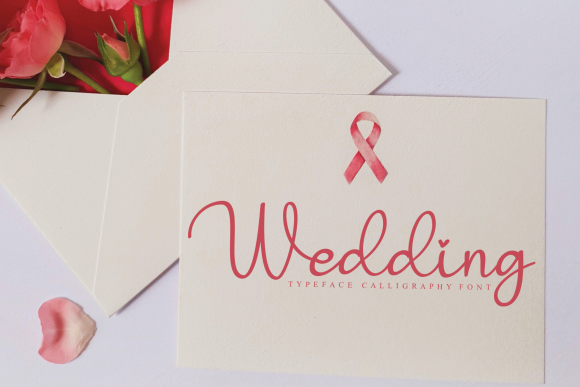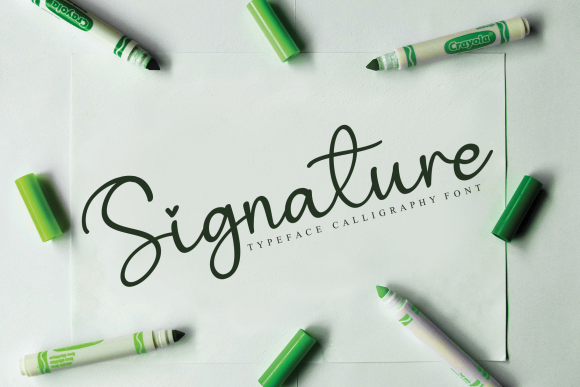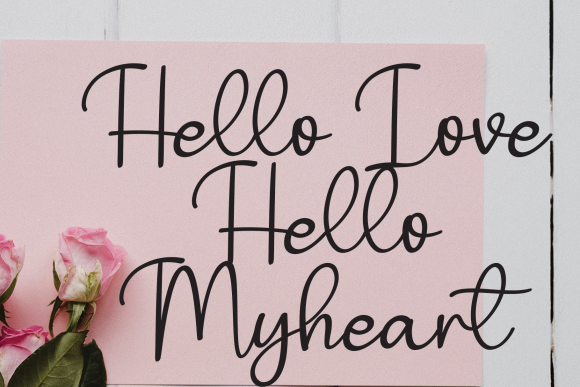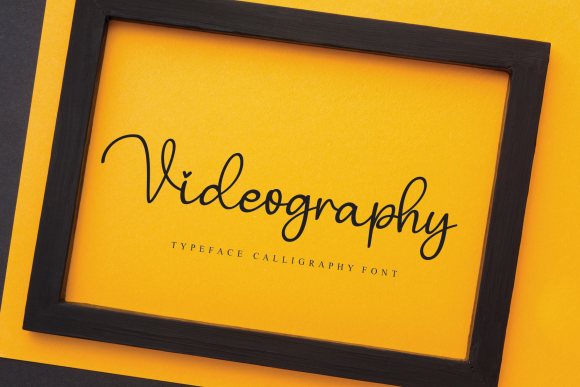
Introducing Angelic Font: Elevate Your Designs with Elegance and Sophistication
In the world of typography, a well-crafted font can make all the difference in elevating your design to new heights. For designers and crafters seeking a touch of elegance and sophistication, look no further than the Angelic Font. This beautiful, handwritten font is meticulously designed to bring a sense of refinement and poise to your projects, making it an ideal choice for fashion branding, editorial designs, and beyond.
The Beauty of Angelic Font
Angelic Font is a masterpiece of typographic design, characterized by its delicate and well-balanced curves. Each letter is carefully crafted to exude a sense of fluidity and harmony, creating a visually stunning effect that is sure to captivate your audience. The font’s elegant appearance makes it perfect for designs that demand a high level of sophistication, such as luxury fashion brands, high-end editorial content, and refined craft projects.
Key Features of Angelic Font
- Delicate Curves: Angelic Font boasts beautiful, flowing curves that add a touch of femininity and elegance to your designs.
- Well-Balanced: The font’s carefully balanced design ensures that each letter and word flows seamlessly into the next, creating a harmonious visual effect.
- Handwritten Charm: With its handwritten origins, Angelic Font brings a sense of warmth and personality to your designs, setting them apart from more traditional fonts.
- Versatile: Whether you’re working on fashion branding, editorial designs, or craft projects, Angelic Font is versatile enough to adapt to any creative vision.
Perfect for Fashion Branding and Editorial Designs
Fashion branding and editorial designs require a level of sophistication and elegance that not all fonts can achieve. Angelic Font, with its refined and delicate appearance, is perfectly suited for these applications. For fashion brands, the font can help convey a sense of luxury and high-end quality, while for editorial designs, it adds a touch of class and sophistication.
Adding Angelic Font to Your Projects
Incorporating Angelic Font into your projects is a straightforward process that can yield impressive results. Here are a few tips to get you started:
- Pair it with Neutrals: Combine Angelic Font with neutral colors and backgrounds to let the font’s elegance shine.
- Experiment with Sizes: Play with different font sizes to create visual interest and hierarchy in your designs.
- Mix with Images: Pair Angelic Font with high-quality images or illustrations to create a visually compelling design.
Why Designers and Crafters Love Angelic Font
Designers and crafters who have had the opportunity to work with Angelic Font rave about its versatility, elegance, and ease of use. Here are a few reasons why:
- Easy to Read: Despite its delicate nature, Angelic Font remains highly legible, making it suitable for body text and headlines.
- Customizable: The font’s flexibility allows for a range of creative possibilities, from subtle adjustments to bold statements.
- Timeless: Angelic Font’s classic design ensures that your projects will stand the test of time, avoiding the pitfalls of trend-based typography.
Angelic Font is a true gem in the world of typography, offering designers and crafters a unique opportunity to elevate their designs with elegance and sophistication. Whether you’re working on fashion branding, editorial designs, or craft projects, this beautiful, handwritten font is sure to leave a lasting impression. With its delicate curves, well-balanced design, and versatile nature, Angelic Font is a valuable addition to any creative toolkit.